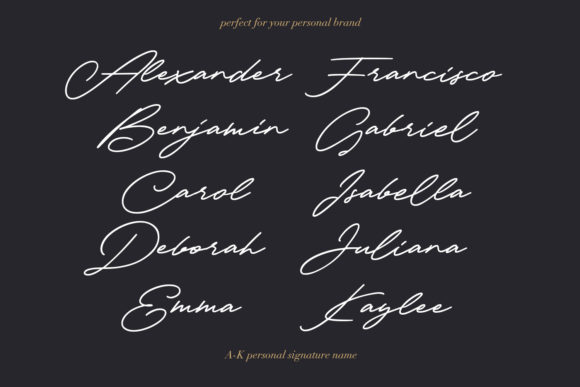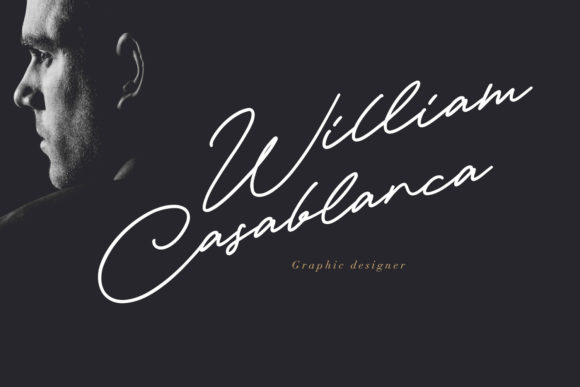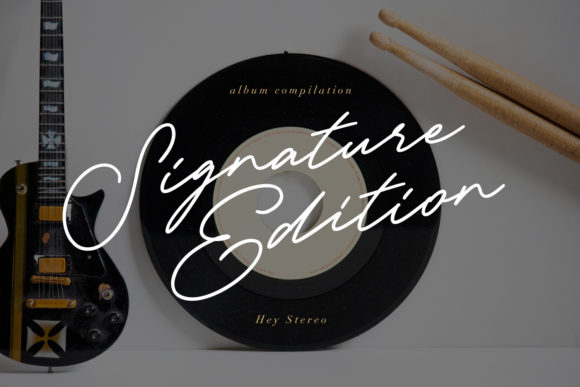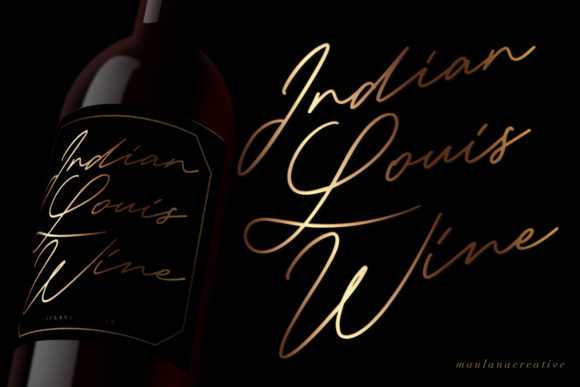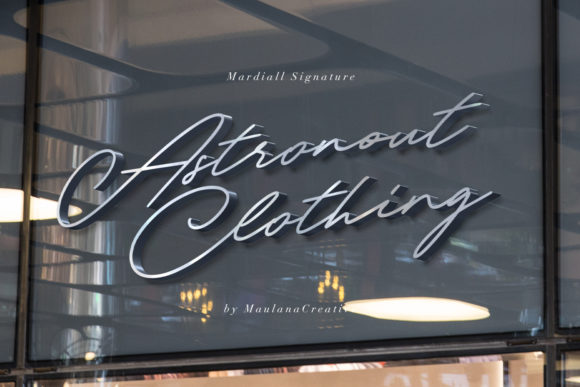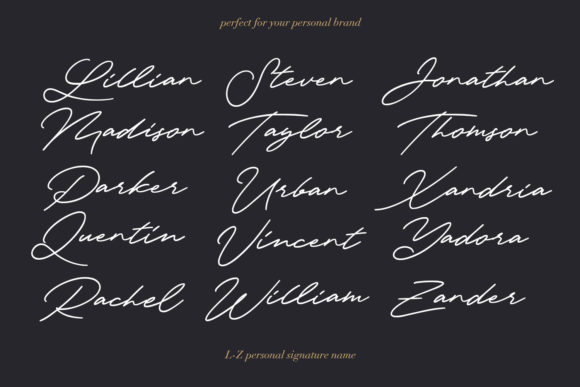
Introduction to Mardiall Signature Font
Mardiall Signature simplifies elegance into one truly outstanding handwritten font.
It maintains its classy calligraphic influences while feeling contemporary and fresh This versatility will appeal to a wide range of crafty ideas, from letterheads and titles, to stationery.